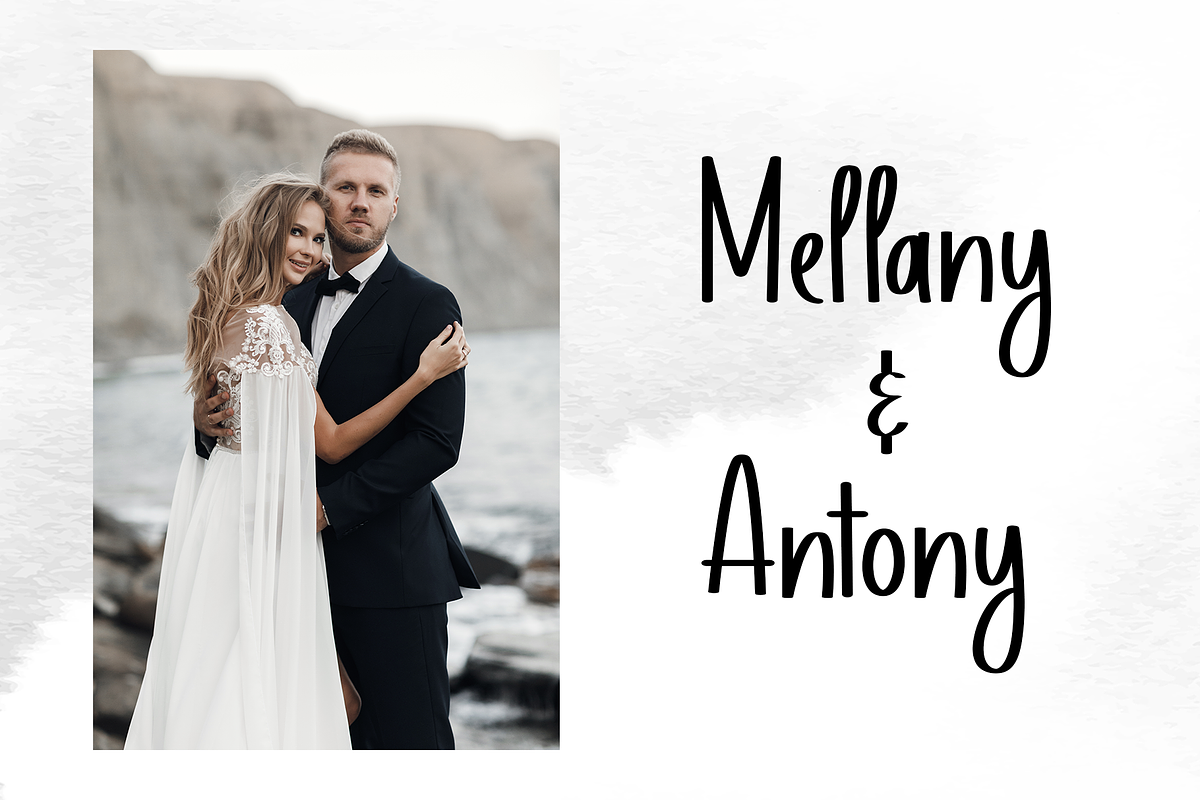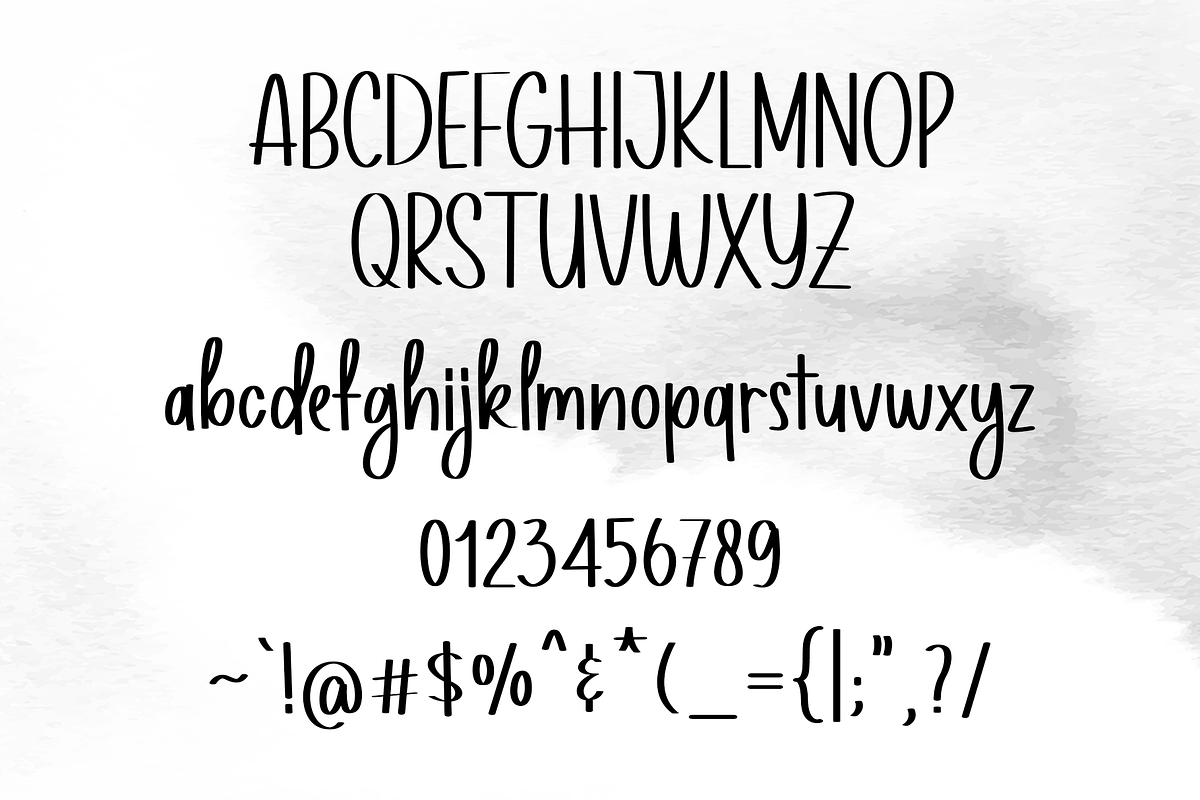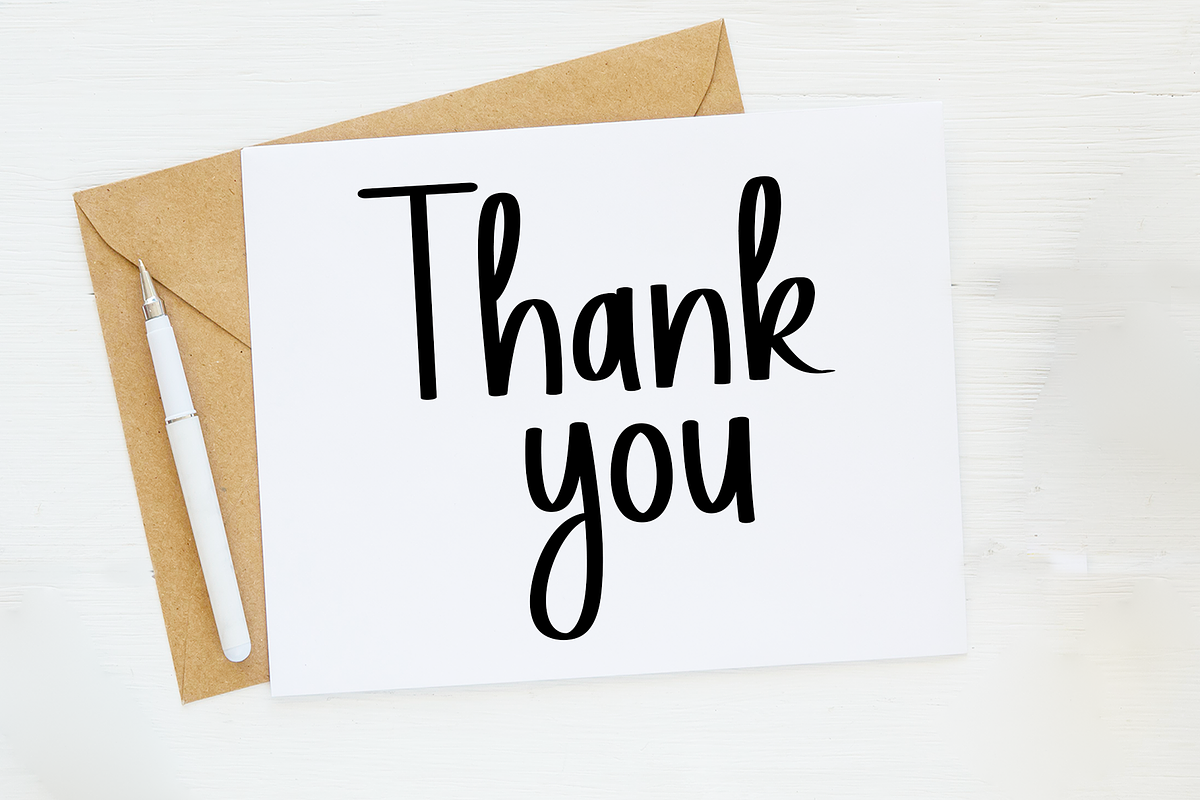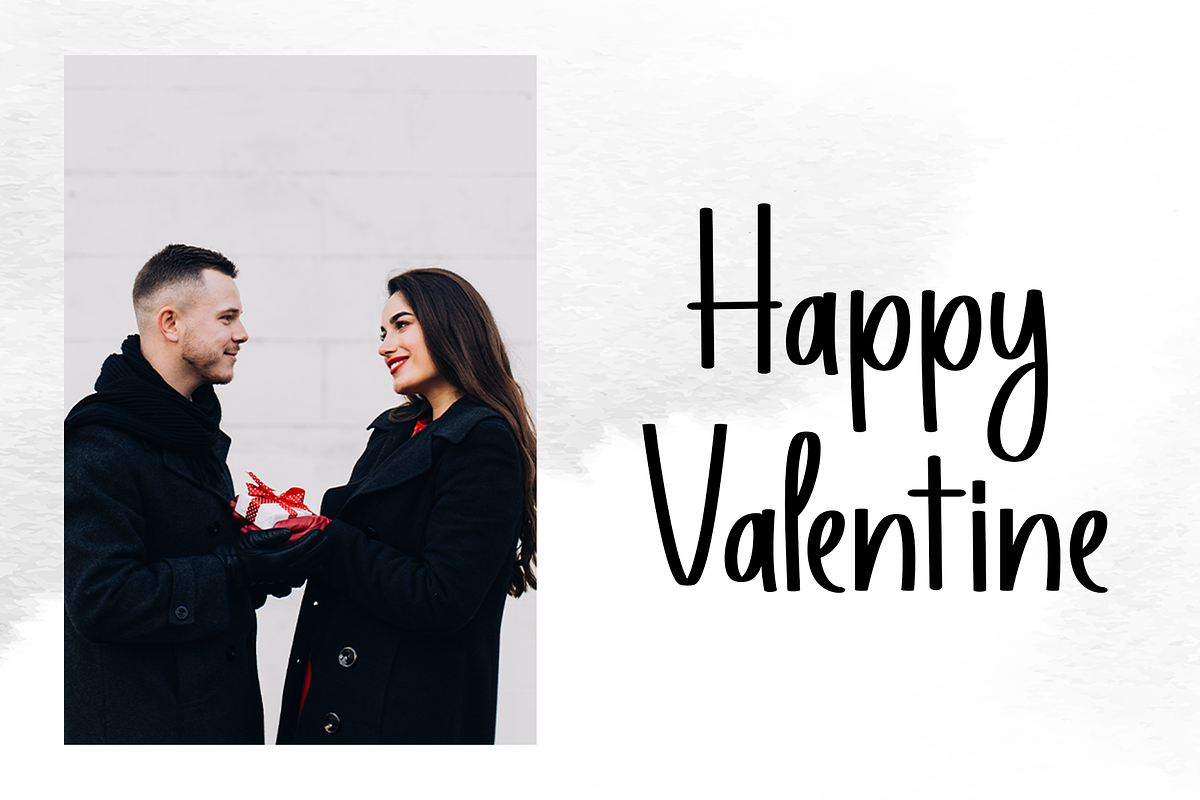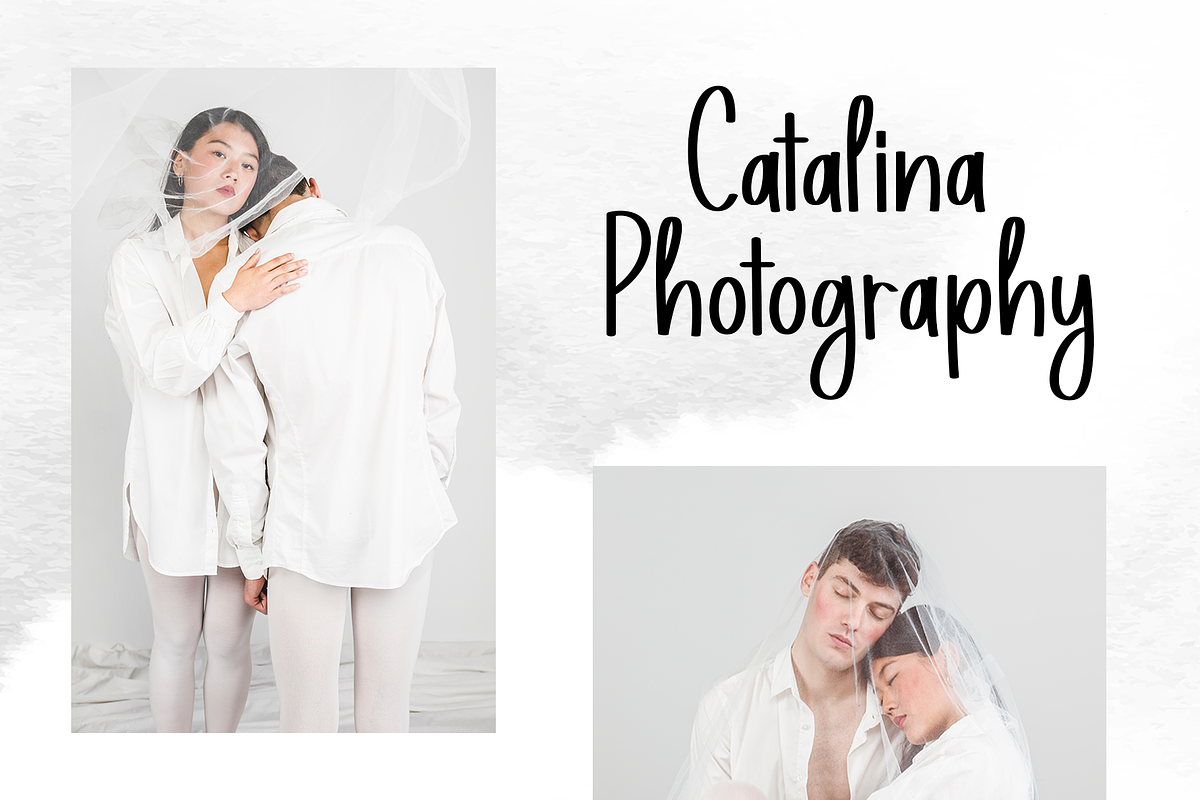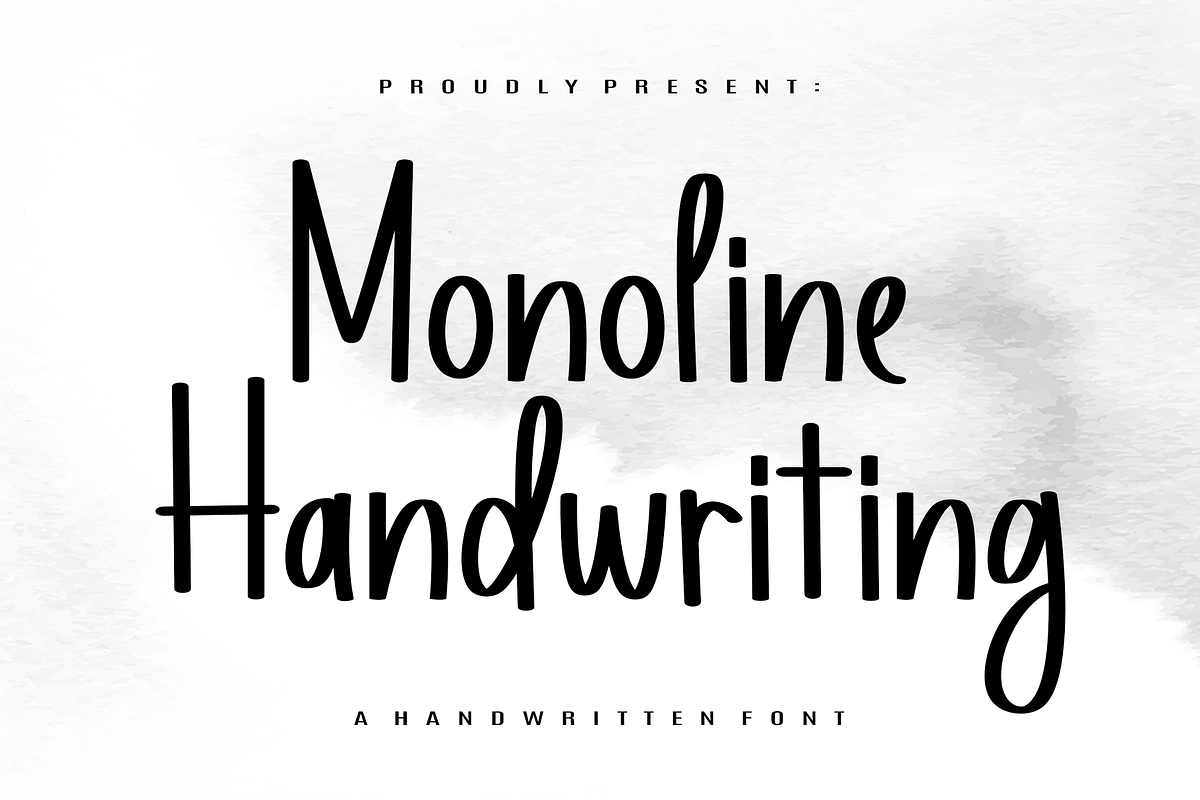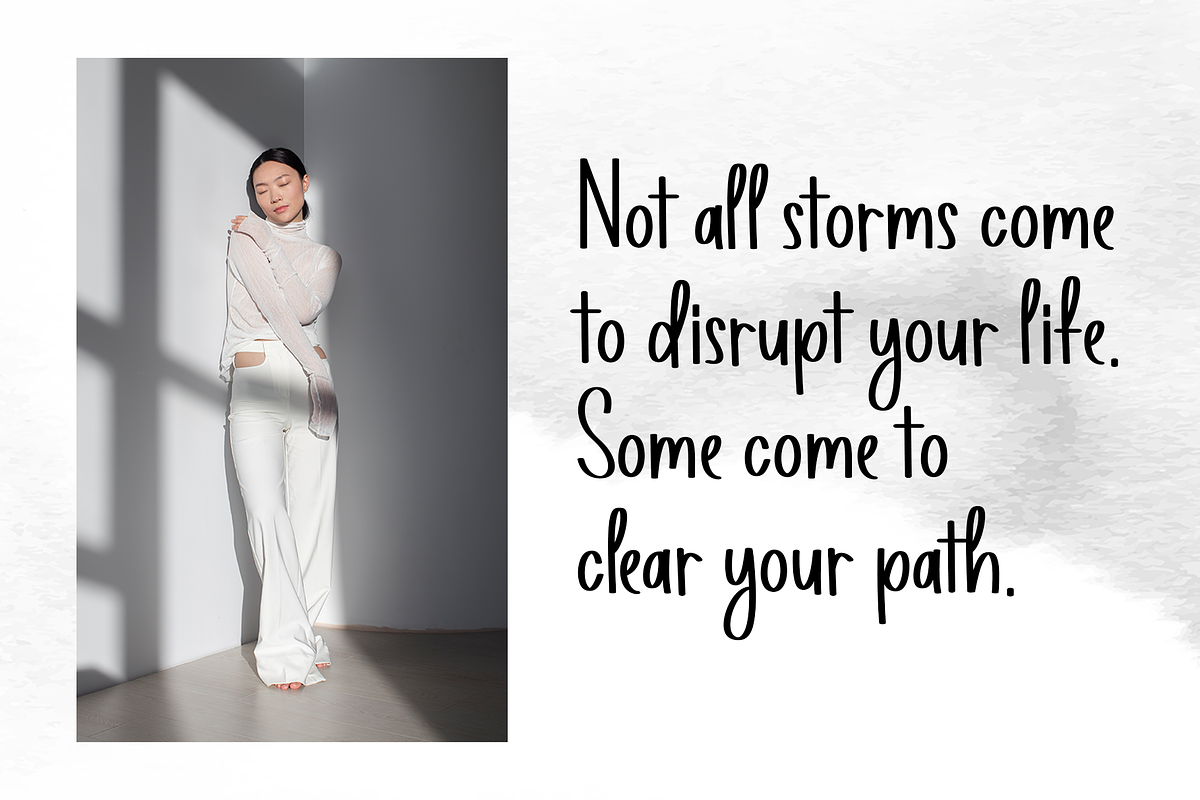
Monoline Handwriting
Discover the appealing simplicity of Monoline Handwriting, an effortlessly stylish font characterized by its fluidity and legibility. Designed with harmony in mind, its ease of recall makes it a standout choice for your diverse projects. Offering standout versatility, Monoline Handwriting elegantly adapts to a broad spectrum of creative applications, seamlessly imparting a personal touch to your work.